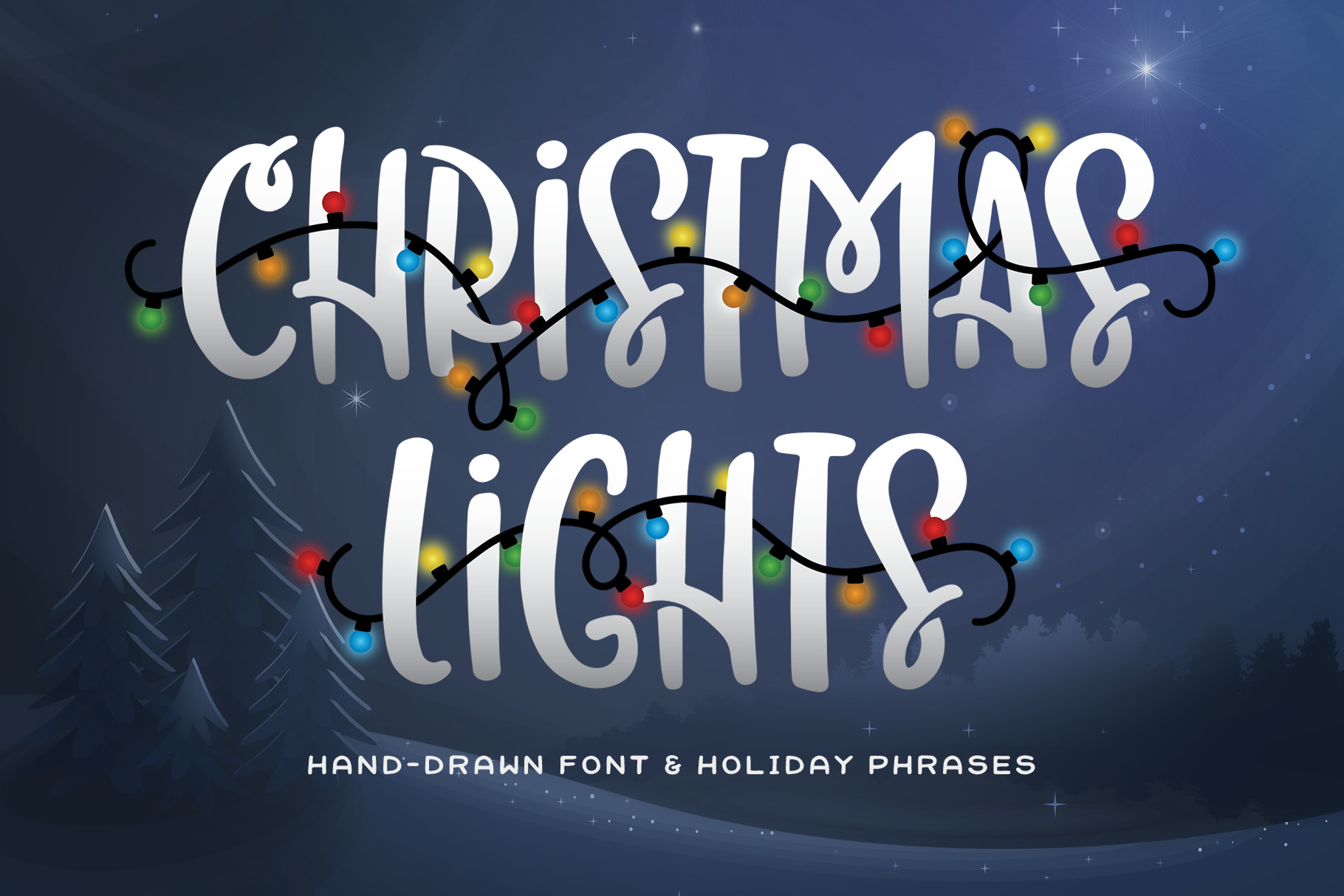
Christmas Lights Font & Phrases
Only separate holiday words are decorated with lights, not the font itself
Christmas Lights is a bold, all-caps font with tons of character. Included in the pack are over 50 holiday words decorated with stringed lights. PNG versions have multi-colored lights, but an Illustrator file is also included which can be used to change the colors of the lights and letters.